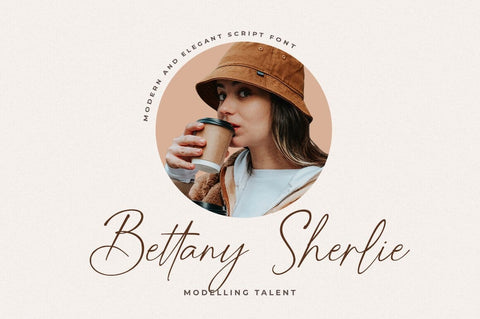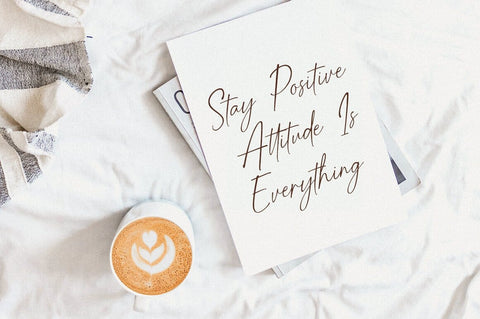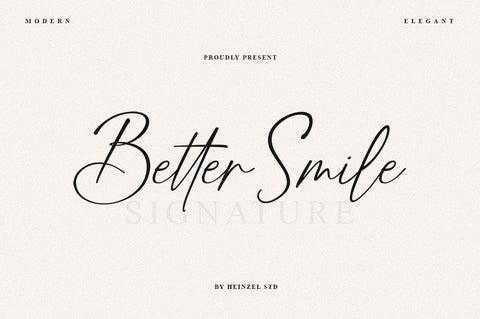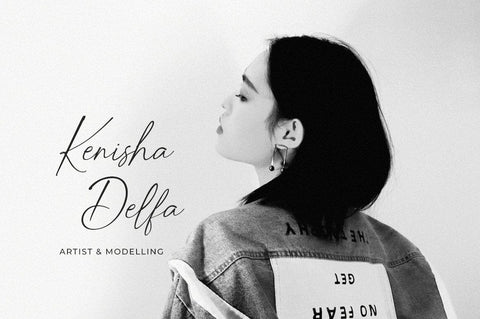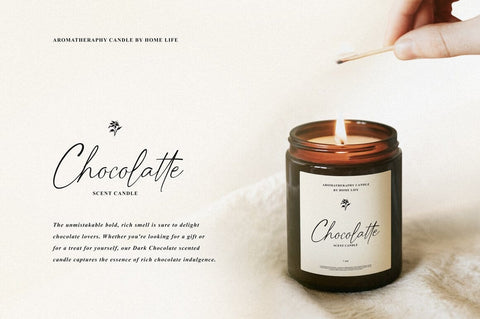
Better Smile Signature Font
Better Smile Signature is a flowing handwritten font, described by an elegant touch, perfect for your favorite projects. It looks stunning on wedding invitations, thank you cards, quotes, greeting cards, logos, business cards and every other design which needs a handwritten touch. Fall in love with its incredibly distinct and timeless style and use it to create spectacular designs!
Better Smile Features :
- Numerical and Punctuation